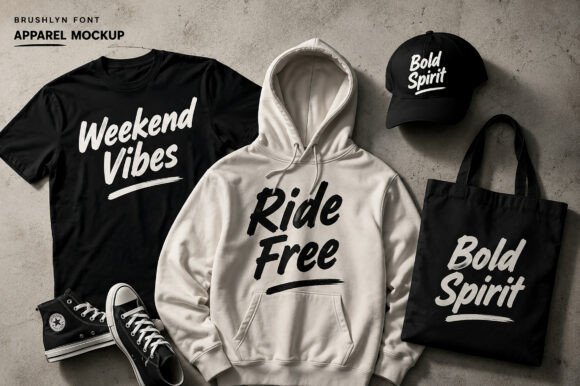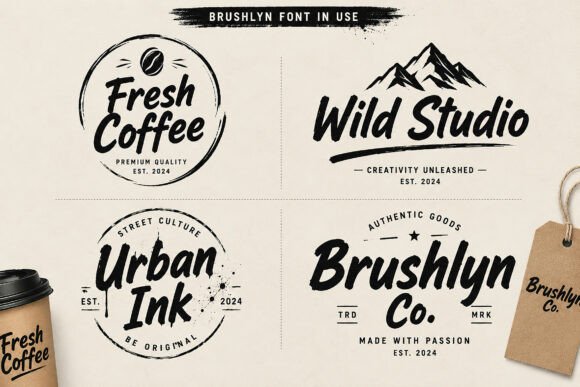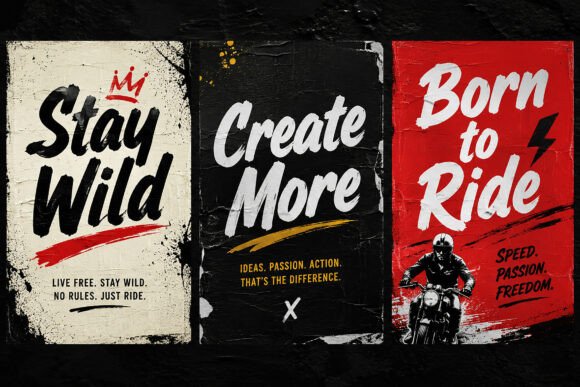
The Perfect Brush Stroke for Your Creative Masterpiece
Have you ever found yourself staring at a blank canvas, trying to bring your creative vision to life, but struggling to find the right words? The perfect phrase, the perfect font, the perfect combination of style and substance – it’s a challenge we’ve all faced at some point. But what if I told you that there’s a font that can bring your creative project to life in a single stroke?
Enter the Brushlyn Font, a bold and expressive brush script font designed to add energy, personality, and handcrafted charm to your designs. With its natural brush strokes, rough edges, and authentic hand-painted details, Brushlyn delivers a strong visual impact while maintaining excellent readability. Whether you’re a designer, entrepreneur, crafter, or content creator, the Brushlyn Font is an essential tool for bringing your creative vision to life.
Key Features of Brushlyn Font
- Font Family: Brushlyn is a unique, hand-drawn font with a natural and elegant feel.
- Unique Characteristics: Brushlyn features a distinctive, hand-painted style with subtle texture and imperfections, giving it a warm and organic feel.
Designer Review: Brushlyn Font
I recently had the chance to work with Brushlyn Font, and I must say it’s a unique addition to any design project. ✨ One of the things that stood out to me was the font’s flexibility – it works well in both digital and print applications. The subtle brush strokes add a touch of elegance and sophistication, making it perfect for designs that require a bit of whimsy.
Another thing I appreciate about Brushlyn Font is its wide range of weights and styles. This allows designers to experiment with different looks and feels, from bold and dramatic to light and airy. ✨ The font also supports multiple languages, which is a definite plus for international projects.
While Brushlyn Font is a solid choice for many projects, there are a few limitations to consider. ⚠️ For one, the font can be a bit difficult to read in small sizes or at high resolutions. Additionally, the brush strokes can sometimes make the text look a bit cluttered or overwhelming. With a bit of careful design, however, these issues can be easily mitigated.
Overall, I think Brushlyn Font is a great addition to any designer’s toolkit. While it may not be the best choice for every project, it’s definitely worth considering for designs that require a bit of flair and personality. With its flexibility, wide range of styles, and support for multiple languages, it’s a font that’s sure to please.
- Flexible and adaptable for digital and print applications
- Wide range of weights and styles
- Support for multiple languages
- Subtle brush strokes add a touch of elegance and sophistication
Practical Application Guide for Brushlyn Font
Tips for Getting the Most Out of Brushlyn Font
For a more dramatic effect, pair Brushlyn Font with a bold or italic font style. To create a cohesive look, use Brushlyn Font consistently throughout your design.
Brushlyn Font is ideal for creating hand-written or vintage-inspired designs. Use it for titles, headings, or quotes to add a touch of elegance and sophistication to your work.